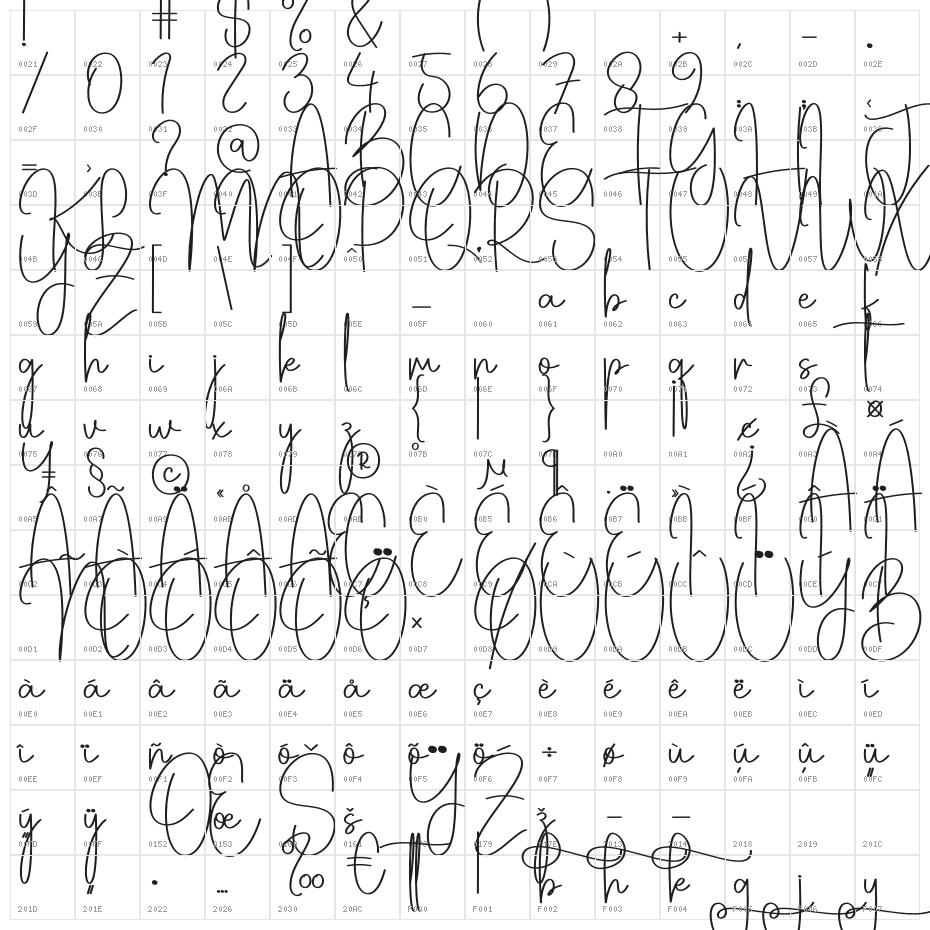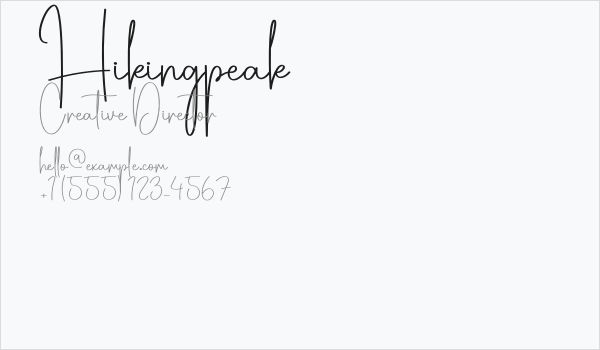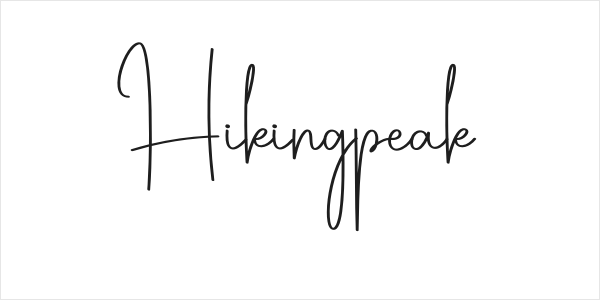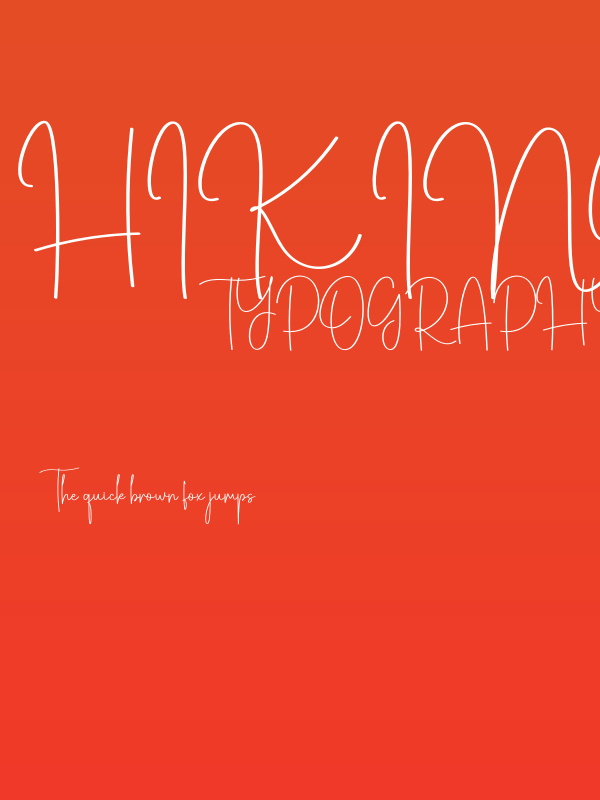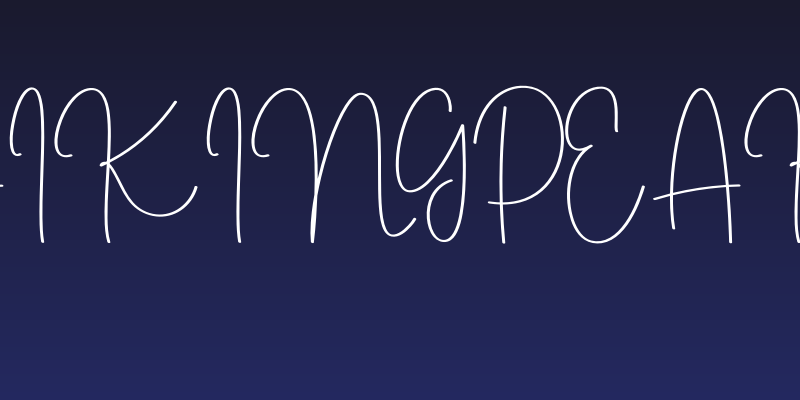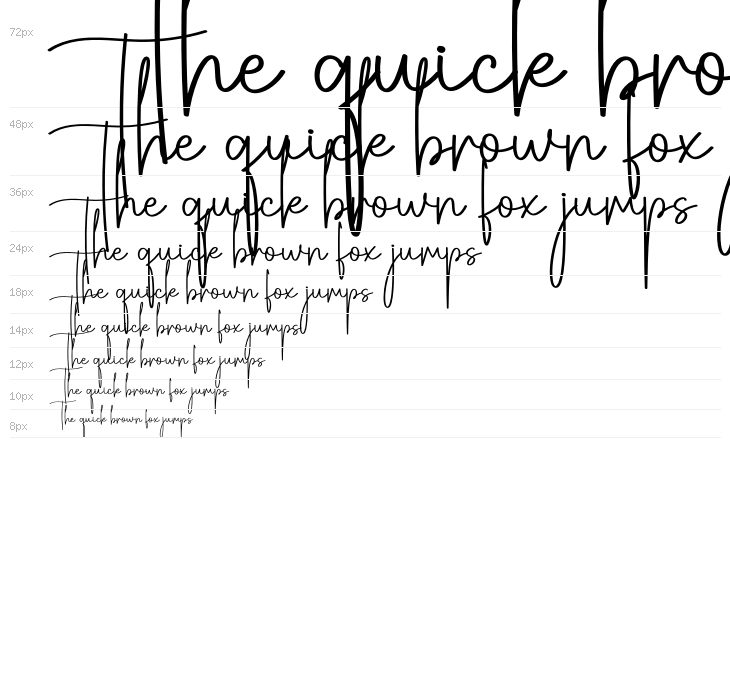
Hikingpeak Font
Hikingpeak Description
A tall, thin, handwritten script font with exaggerated ascenders and descenders, featuring smooth, continuous strokes and a casual, playful appearance. The characters are loosely spaced, with a consistent line weight and a modern, informal style.
| Overall Style | Modern, Decorative, Playful |
| Use Case | Logos, Headlines, Invitations, Social media graphics |
| Proposed Projects | Greeting cards, invitations, personal branding, social media graphics, quotes, and creative posters. |